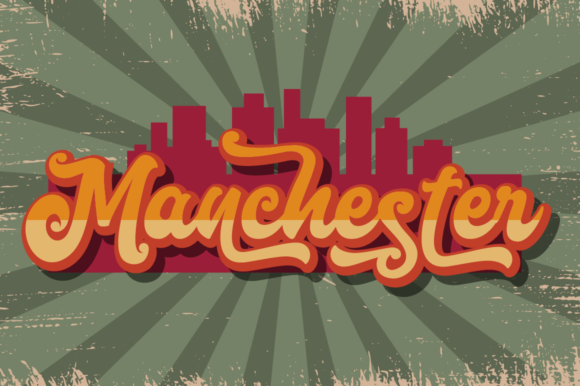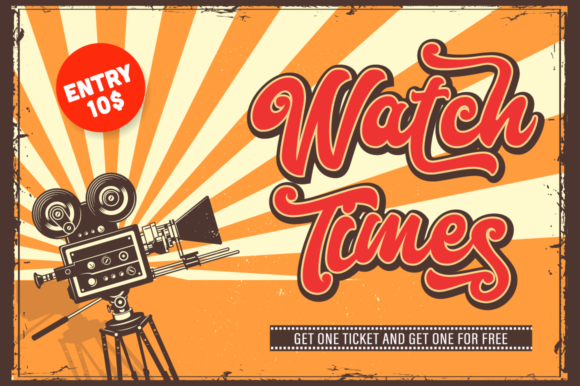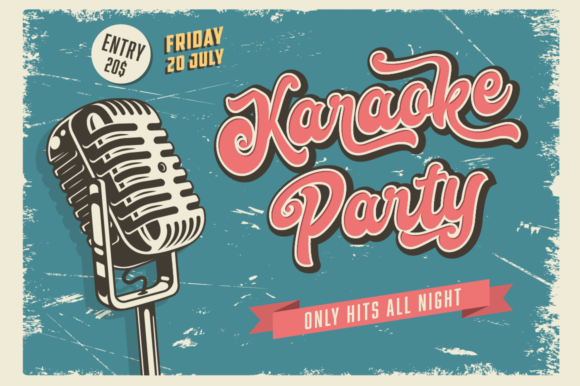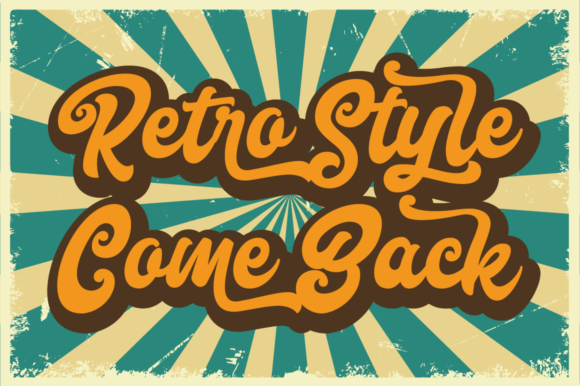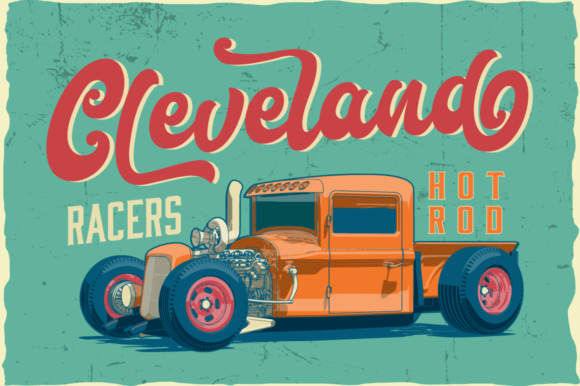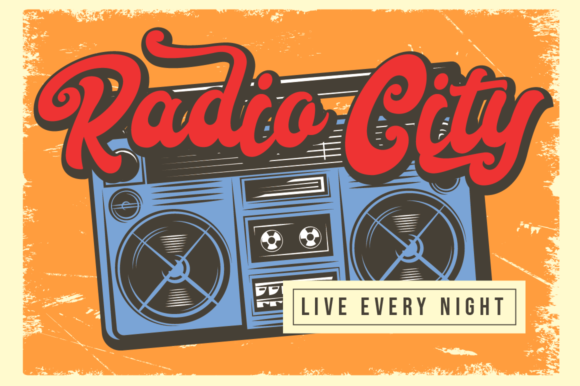
The Perfect Blend of Vintage Charm and Modern Flair
Have you ever stared at a blank canvas, struggling to find the perfect font to bring your design to life? The cursor blinks impatiently, and your mind starts racing with options. But then, it hits you – the perfect font to evoke the feeling of nostalgia and sophistication. Enter the Hayes Preston Font, a bold and vintage styled handwritten font that’s sure to add a touch of magic to your designs.
This dynamic font reads as strong, confident, and full of character, making it a valuable addition to any designer’s toolkit. Whether you’re working on a branding project, creating a social media campaign, or crafting a beautiful wedding invitation, the Hayes Preston Font is sure to elevate your design game.
Hayes Preston Font Key Features
- Unique Characteristics: The Hayes Preston Font features a distinctive, elegant script style with subtle flair and connection between letters, making it ideal for use in invitations, wedding stationery, and other high-end applications.
- Font Style: The Hayes Preston Font is available in both regular and italic styles, providing users with flexibility and creative options for their designs.
Designer Review: Hayes Preston Font
Overall, I have mixed feelings about the Hayes Preston Font. There are some great aspects to it, but also some limitations that may hold it back from being a top-tier font.
- The Hayes Preston Font has a unique and modern aesthetic that can add a touch of sophistication to any design.
- It’s highly legible, making it suitable for both body text and headings.
- The font’s subtle flair and rounded edges give it a friendly and approachable feel.
- It’s available in a range of weights and styles, providing designers with plenty of options for customization.
Limitsations ⚠️
- The font may not be the best choice for formal or traditional designs, as its modern feel may not be suitable for those styles.
- The font’s subtle flair can sometimes make it difficult to read at smaller font sizes.
- The font family is not as extensive as some other popular fonts, which may limit its use in certain situations.
Overall, I think the Hayes Preston Font is a solid choice for designers looking for a modern and legible font. However, its limitations may make it less suitable for certain projects. With a little creativity and experimentation, I think this font can be a valuable addition to any design toolkit.
Tips for Getting the Most Out of the Hayes Preston Font
1. Use the Hayes Preston font for headings and titles to add a touch of elegance to your designs.
2. Pair the Hayes Preston font with a clean sans-serif font for body text to create a balanced and harmonious design.
3. Experiment with different font sizes and styles to create visual interest and hierarchy in your designs.
The Hayes Preston font is ideal for:
1. Luxury branding and marketing materials.
2. High-end wedding invitations and stationery.
3. Fashion and beauty branding and marketing materials.
Alternatives to Hayes Preston Font for Designers
Playfair Display is a luxurious and elegant serif font, ideal for use in high-end branding, invitations, and luxury products. It has a classic feel with a touch of sophistication, making it perfect for designs that require a sense of refinement and opulence. Compared to Hayes Preston Font, Playfair Display has a more formal and traditional look, making it suitable for formal events and high-end products.
Q: Can I customize the Hayes Preston Font?
Yes, the Hayes Preston Font is a highly customizable font. It supports various OpenType features, including ligatures, swashes, and stylistic sets. You can also use font editing software, such as FontLab or FontForge, to modify the font’s design and characteristics.